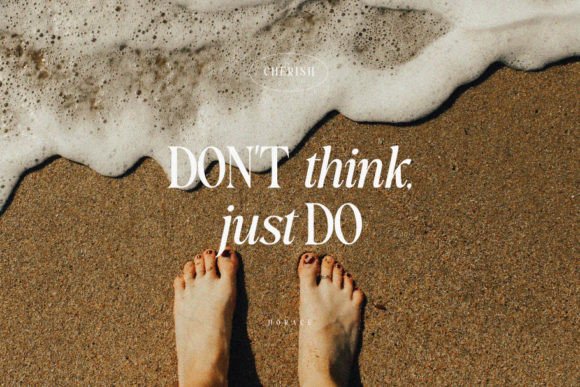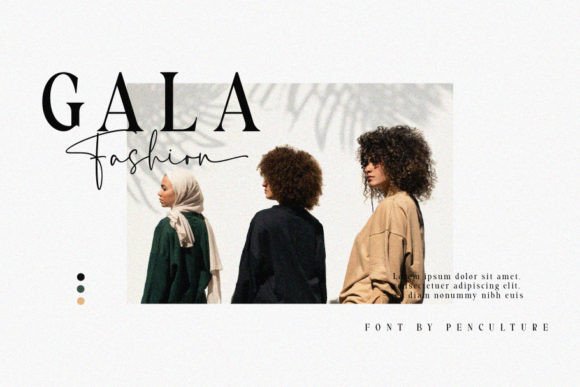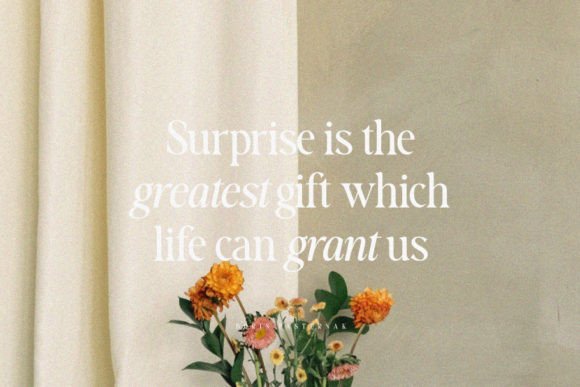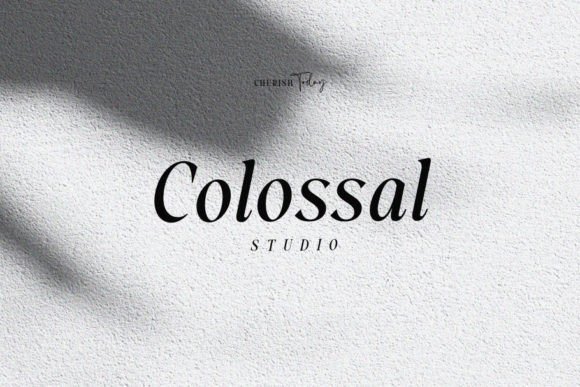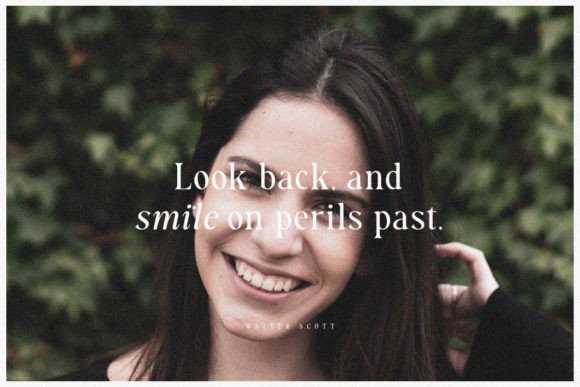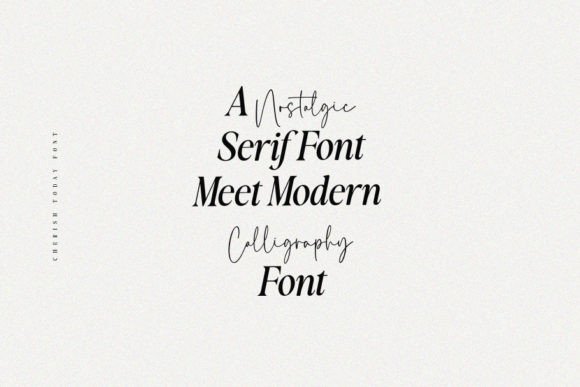
The Designer’s Delight: Cherish Today Font
I’ll never forget the moment I stumbled upon the Cherish Today font duo. I was working on a project for a client who wanted a stylish and modern look, but I was struggling to find the right font. That’s when I discovered Cherish Today, a beautiful combination of serif and script fonts that instantly elevated my design game. In this article, I’ll share my experience with Cherish Today, its features, and how to make the most of this gorgeous font duo.
- ✨ Stylish and Modern: Cherish Today is a perfect blend of style and modernity. Its elegant serif and script fonts make it ideal for a wide range of design projects.
- 💫 Grounded and Natural: Despite its stylish look, Cherish Today keeps your designs grounded and natural, making it perfect for projects that require a touch of sophistication.
While Cherish Today is an amazing font duo, there are a few minor limitations to consider:
- ⚠️ Glyph Limitations: While Cherish Today has an impressive range of glyphs and ligatures, there might be some limitations when it comes to specific characters or symbols.
The Designer Inspiration Behind Cherish Today
Cherish Today was designed with the goal of creating a font duo that combines style, elegance, and versatility. The designer aimed to create a font that would be perfect for a wide range of design projects, from branding and advertising to packaging and digital media. With its PUA encoding and extensive range of glyphs and ligatures, Cherish Today is an excellent choice for designers who want to add a touch of sophistication to their creations.
Q: Is Cherish Today suitable for body text or long-form content?
A: While Cherish Today is an elegant and stylish font, it may not be the best choice for body text or long-form content. Its script font companion is better suited for headlines, titles, or short paragraphs, while the serif font is more suitable for longer blocks of text.